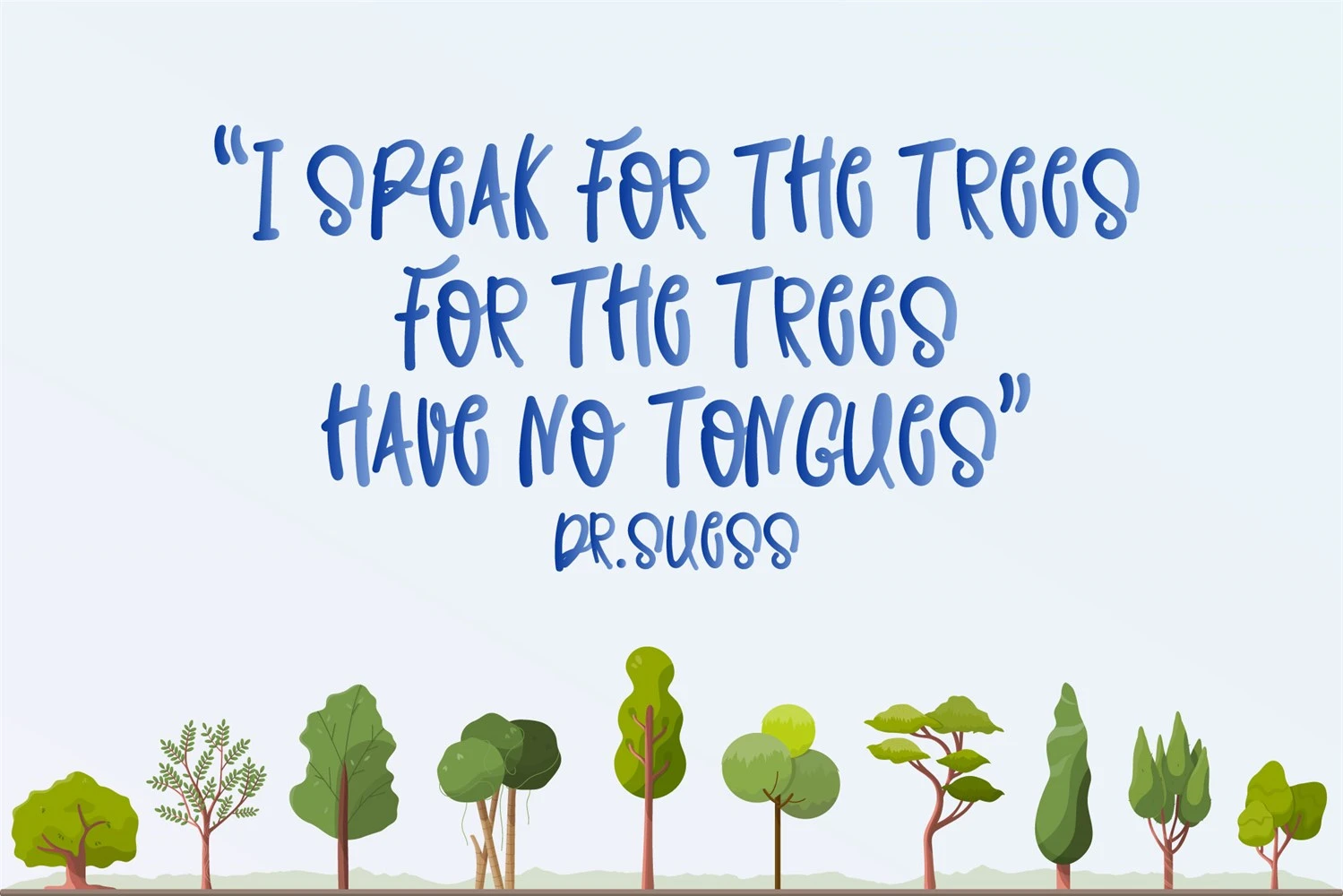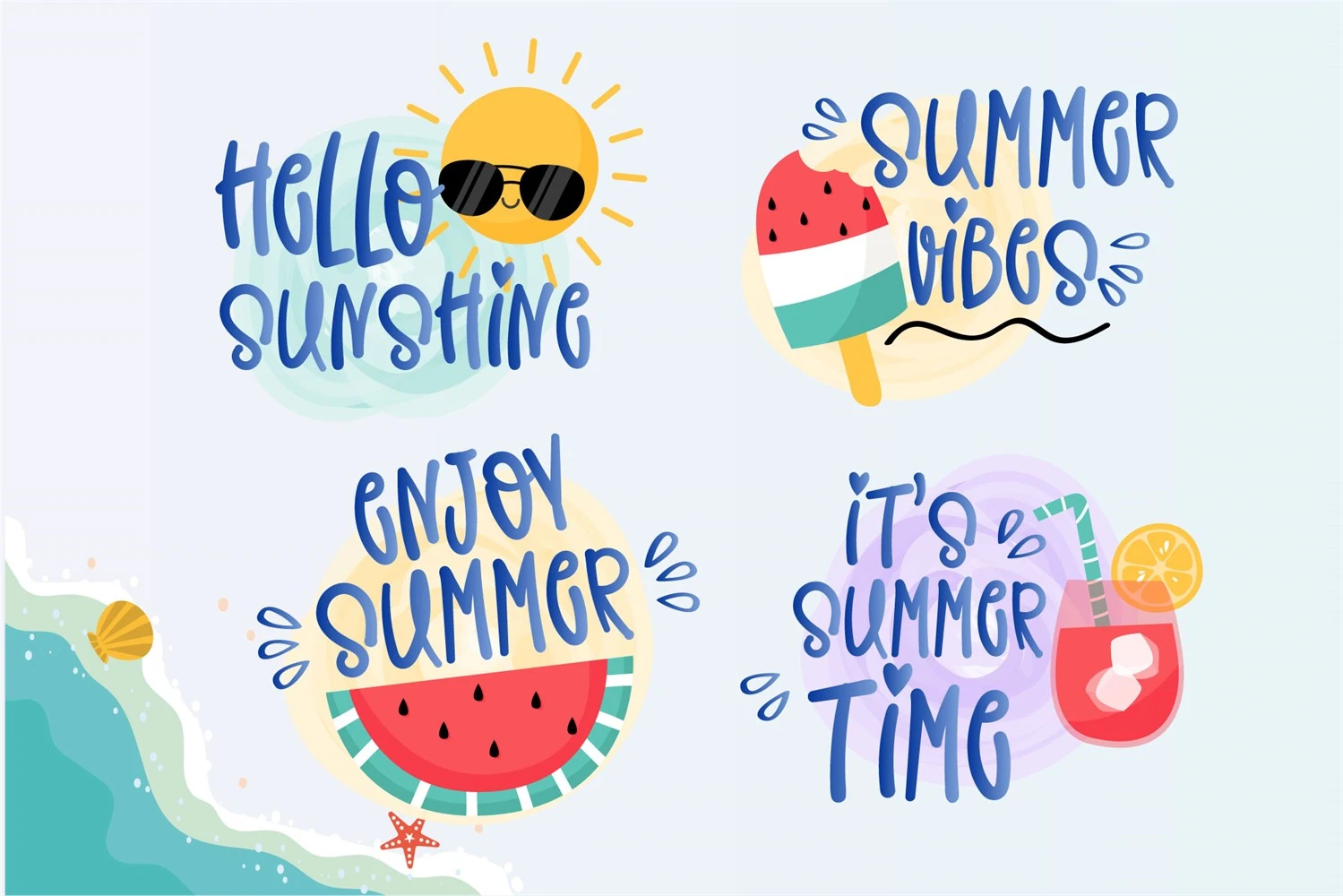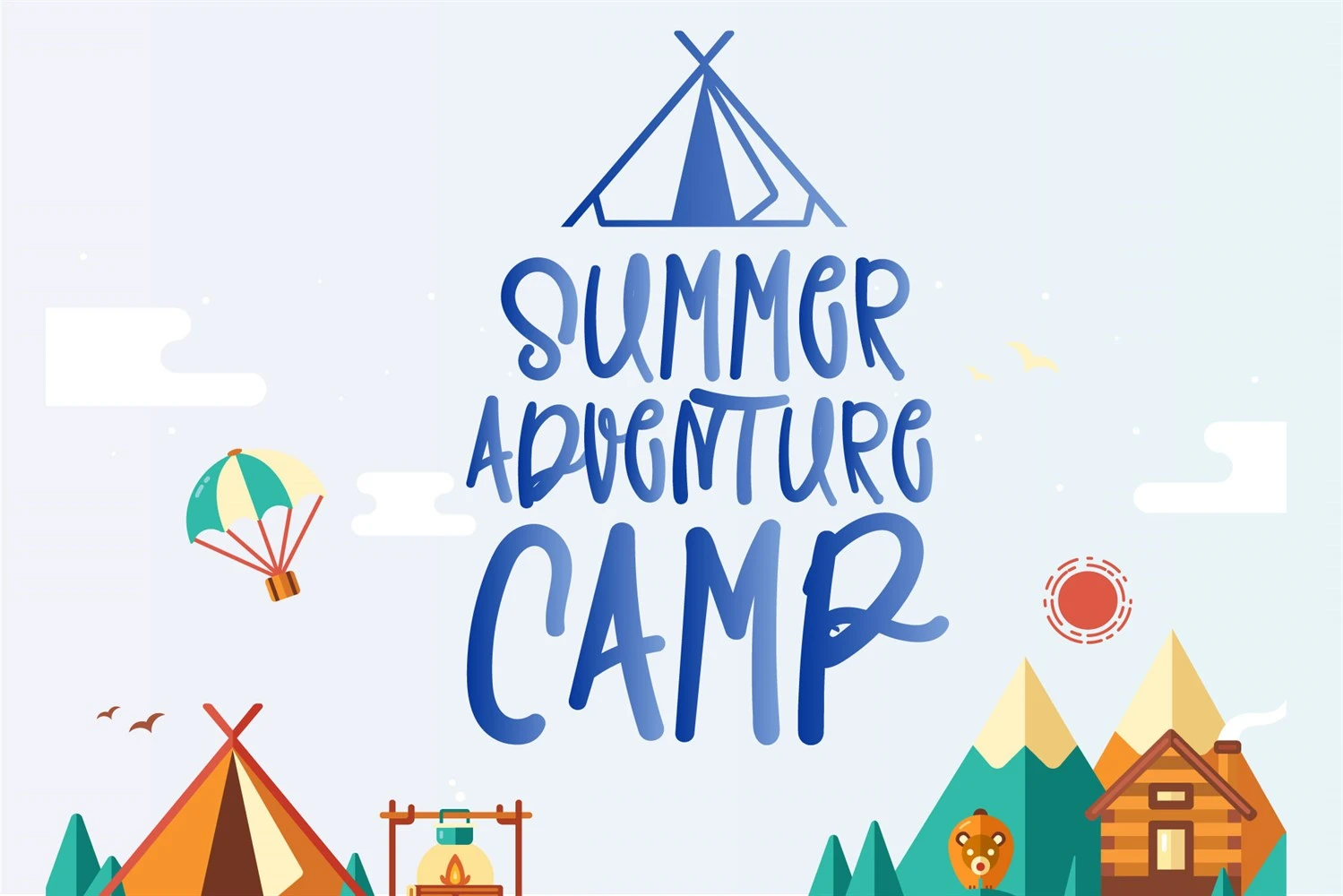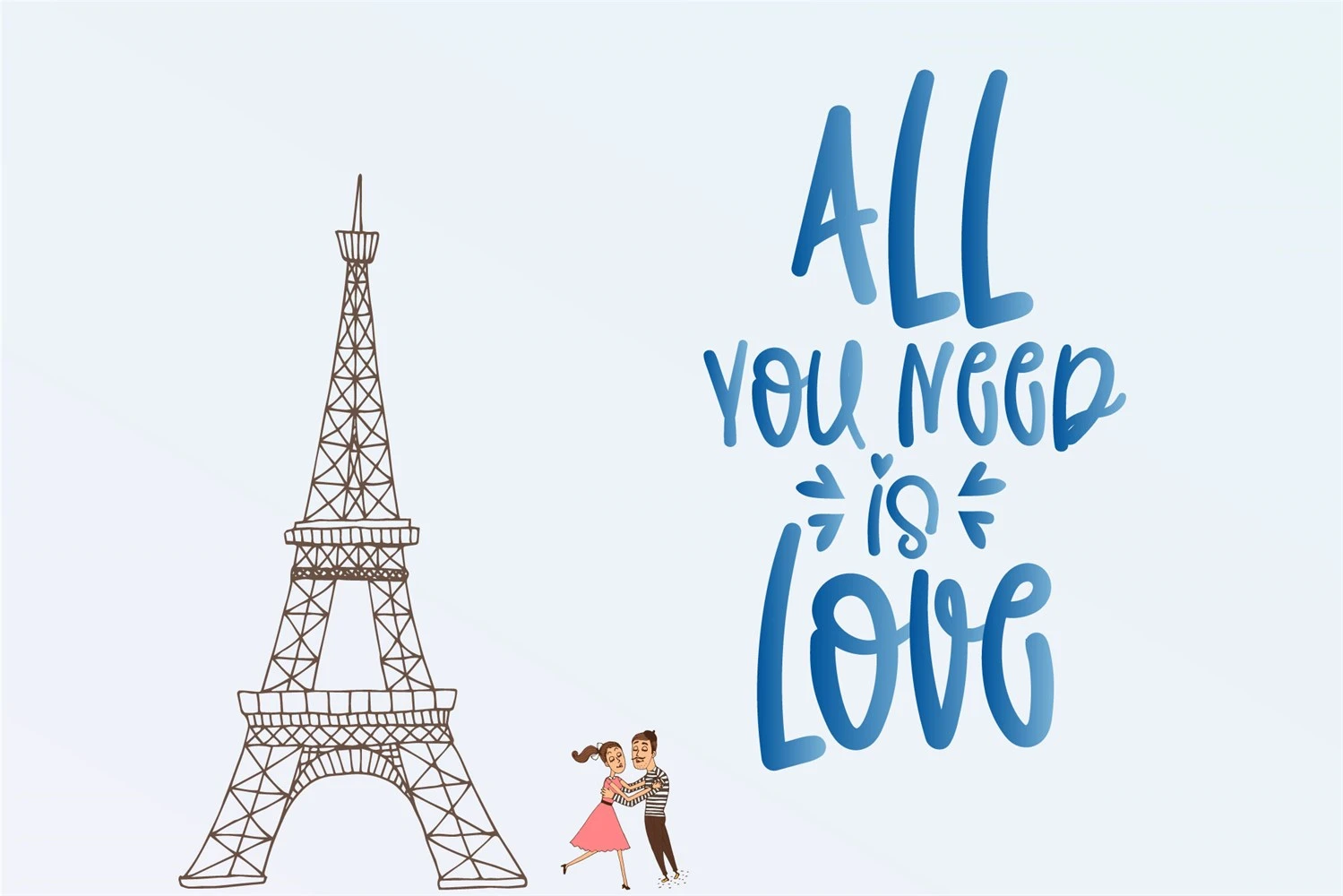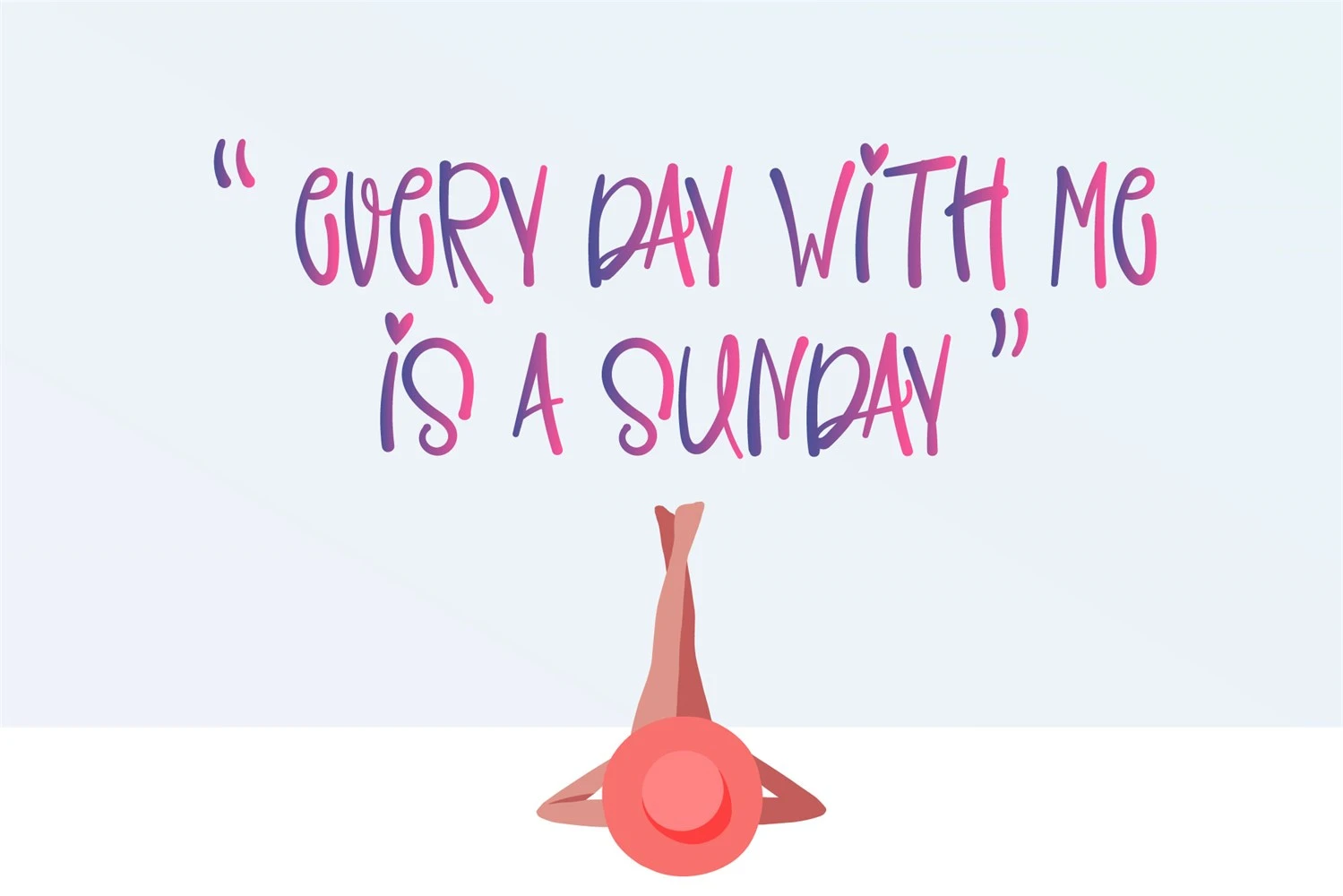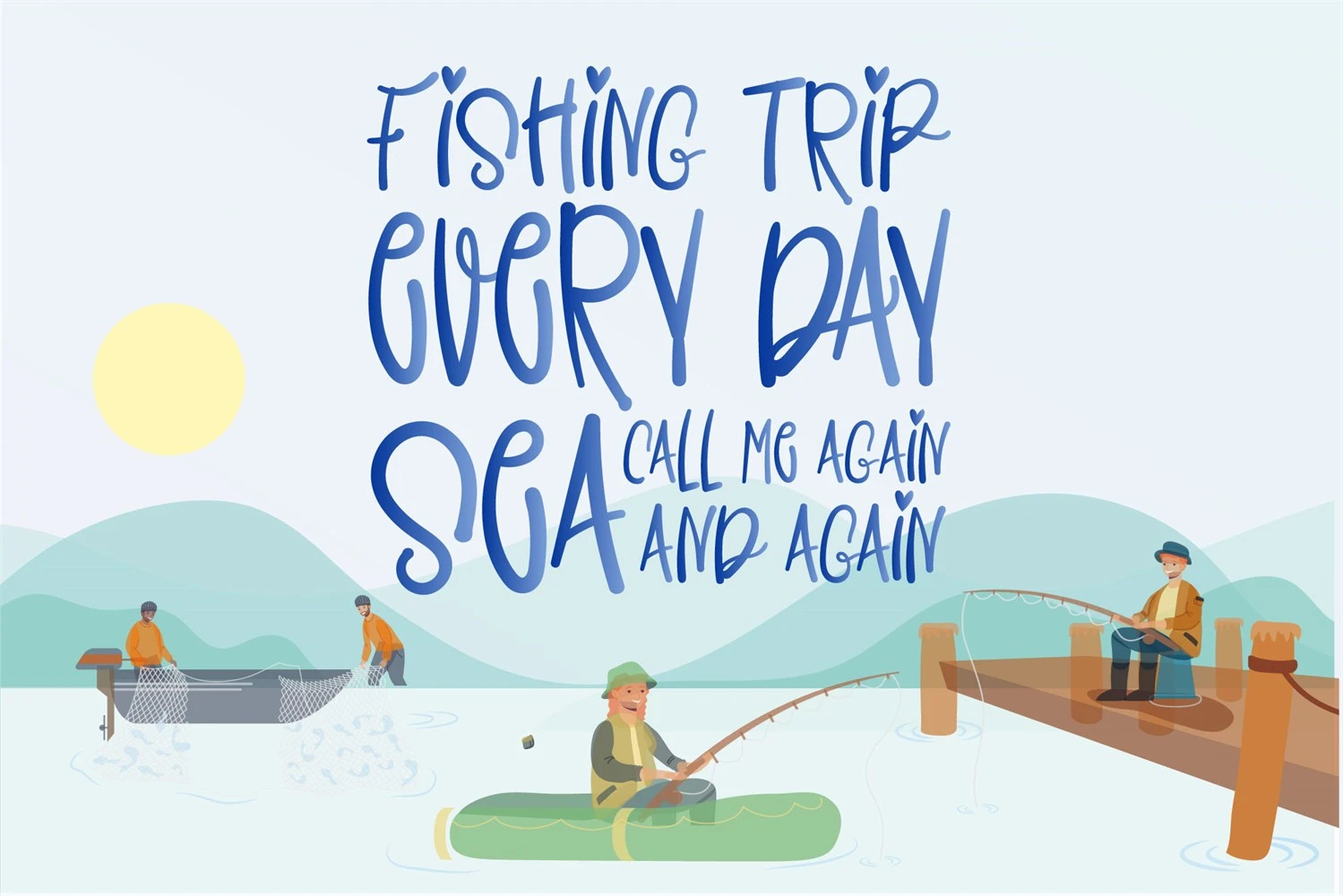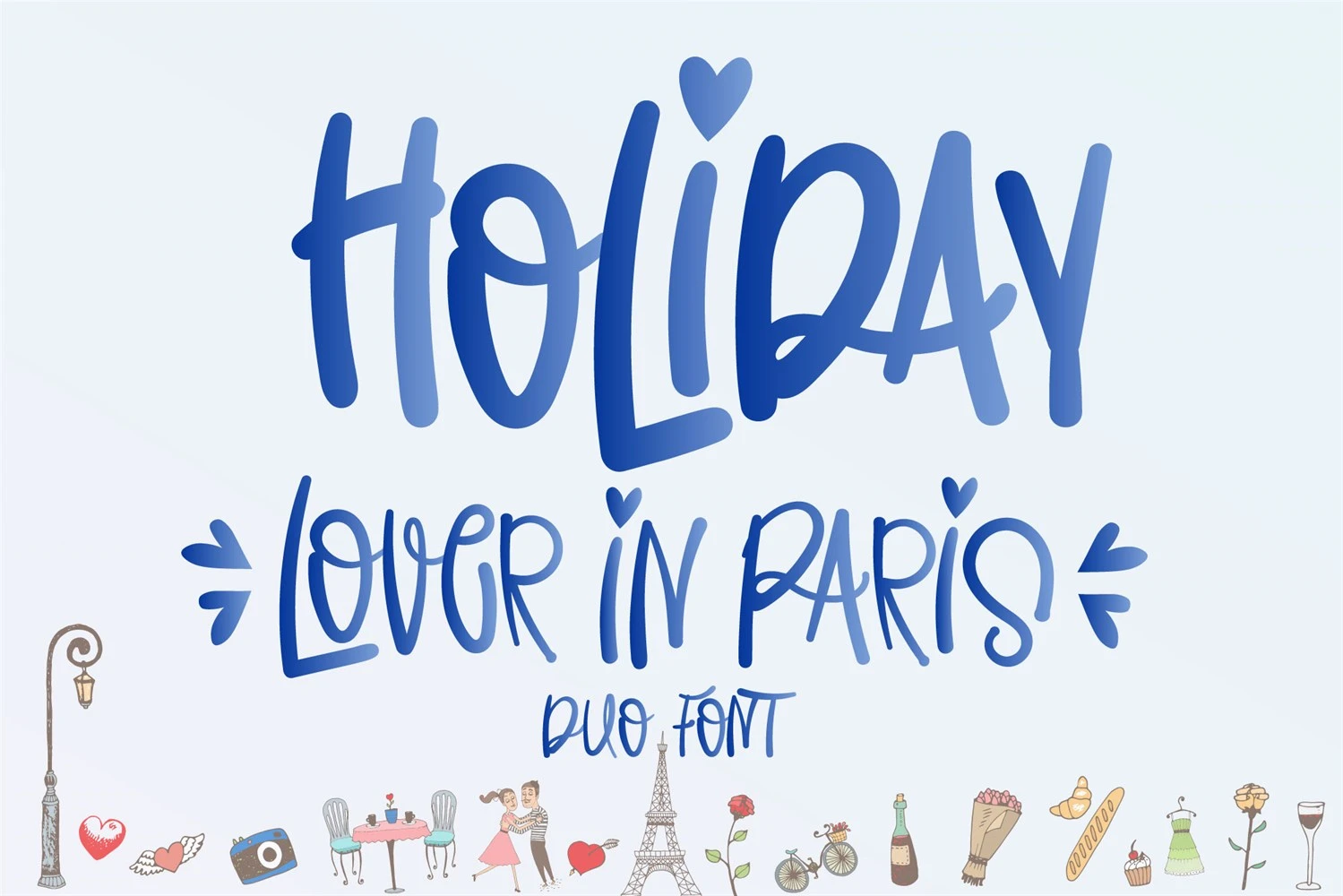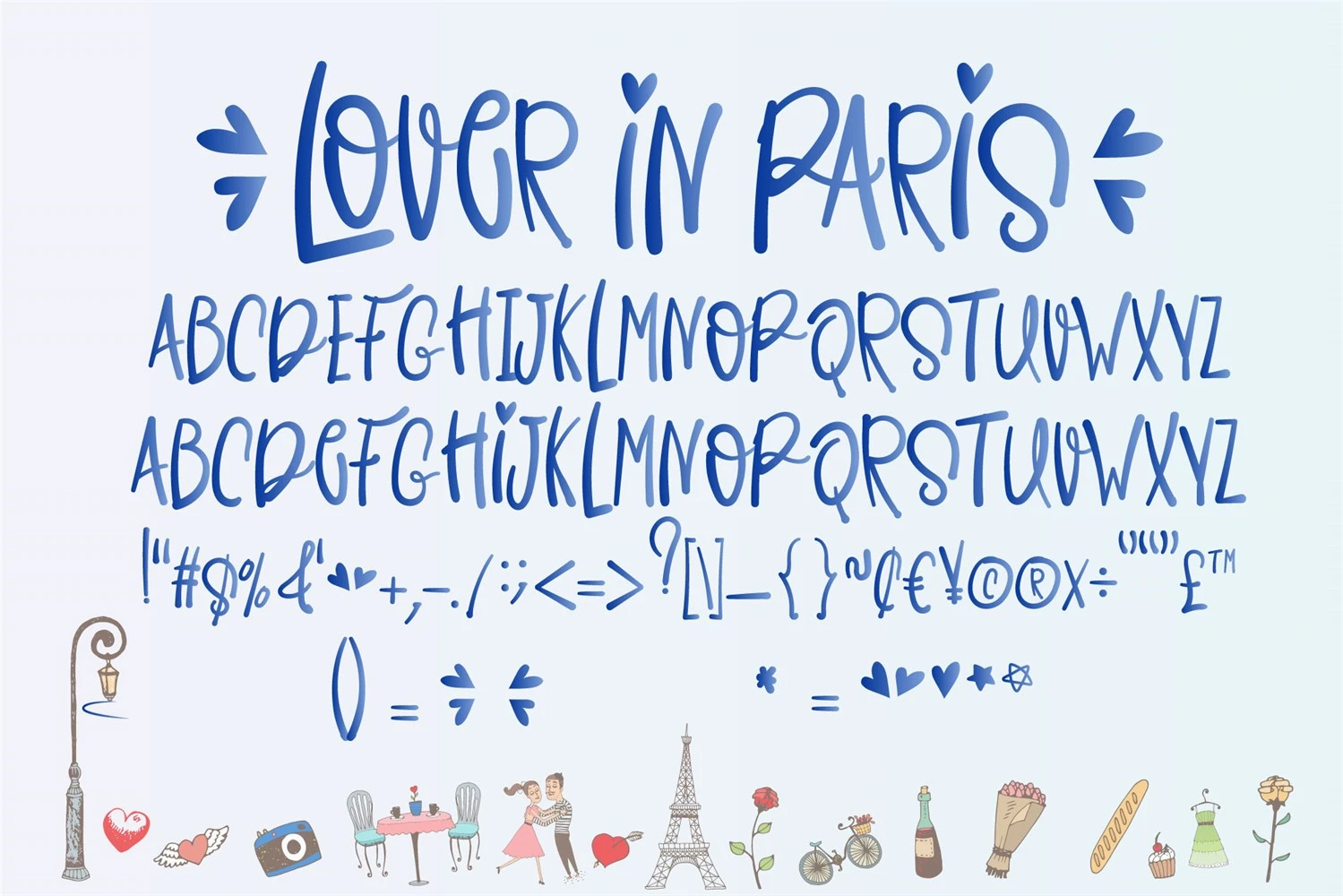
Introducing the Holiday Lover in Paris Font, a charming and trendy handwritten font that adds a touch of informality and friendliness to your designs. This versatile font is perfect for a wide range of projects, from greeting cards and invitations to social media posts and branding materials. With its casual and adept style, Holiday Lover in Paris Font brings a sense of warmth and personality to any design. Embrace the carefree spirit of handwritten typography and elevate your creations with this delightful font.